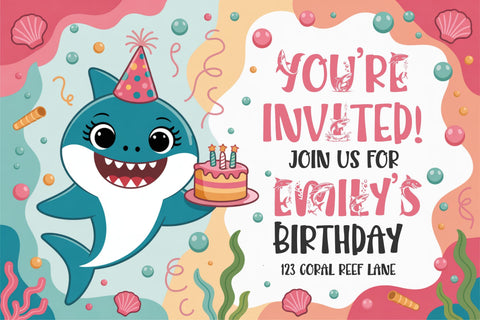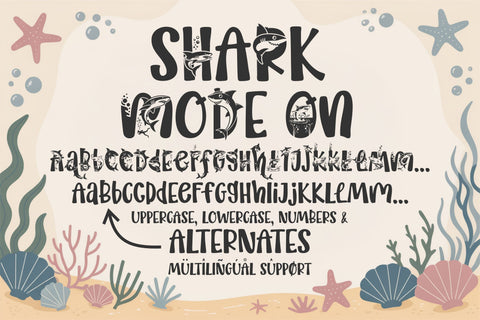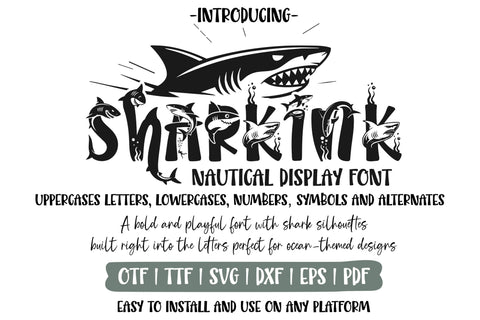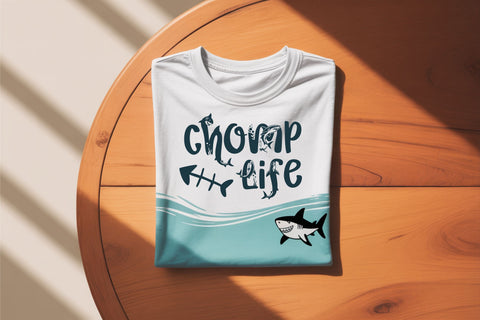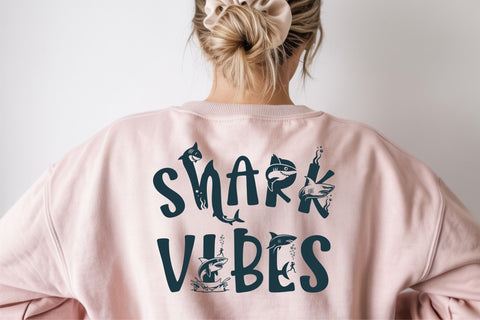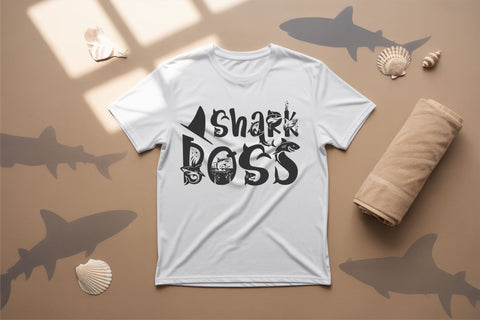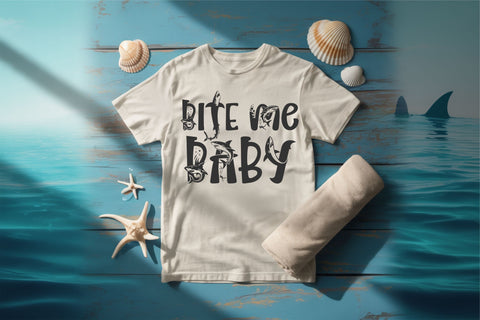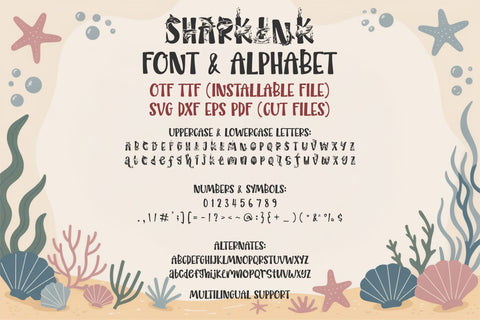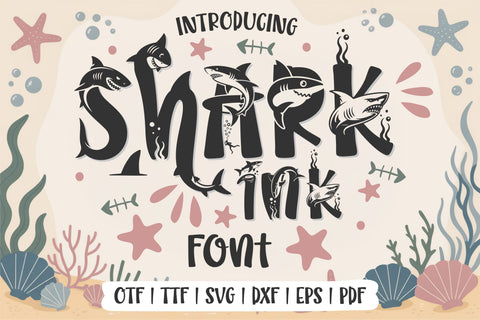
SharkInk is a bold and playful sea-themed font filled with shark-tastic fun! Each letter is packed with shark silhouettes, bubbles, and underwater details built right into the letterforms, giving your designs a fierce yet kid friendly ocean vibe.
Perfect for boys’ birthday shirts, summer party invitations, beach crafts, classroom displays, and Cricut/Silhouette projects, SharkInk adds splashy personality to anything you create. Whether you're designing for Procreate, kids room decor, or beachy printables, this font delivers a bite of creativity with every character!
✔️ Full alphabet (A–Z, a–z), numbers (0–9), punctuation, and alternates
Perfect for:
Shark birthday shirts, ocean nursery prints, party invitations, beach signs, teacher printables, Procreate quotes, classroom decor, and sea-themed designs for kids.